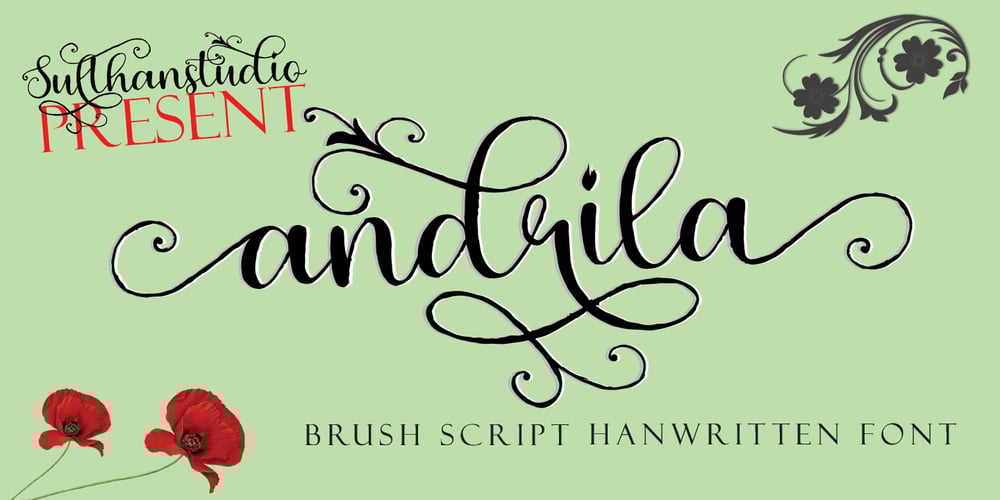
Andrila Font Family was designed by Nasrullah and published by Sulthan Studio. Andrila contains 1 styles and family package options. Andrila is a brush font that I made using a pen and I bolded it in several parts, making it a beautiful calligraphy styled font, also very sweet and cute. It can be used for various purposes such as titles, logos, wedding invitations, t-shirts, letterheads, signage, labels, news, posters, badges, and more.Andrila is built with OpenType features and includes swashes, ligatures and everything to add touches to your design, as well as support for other languages.